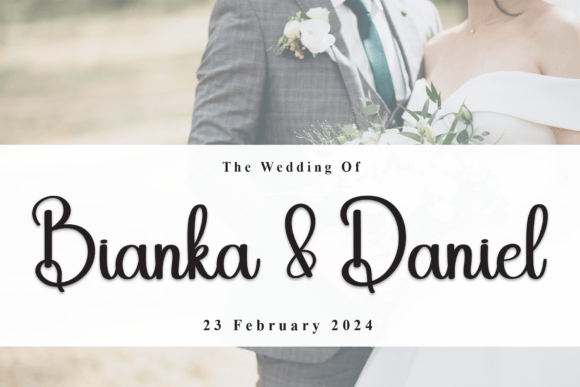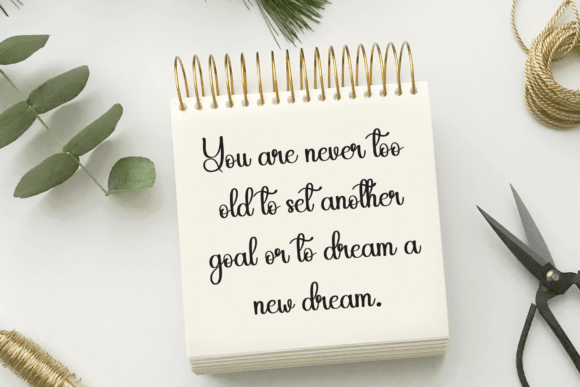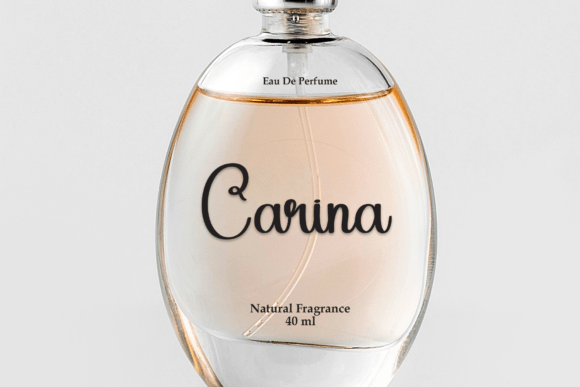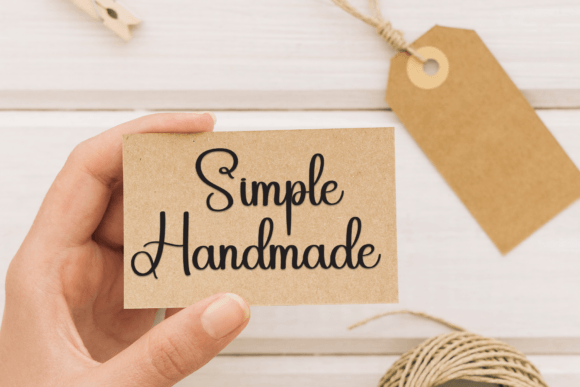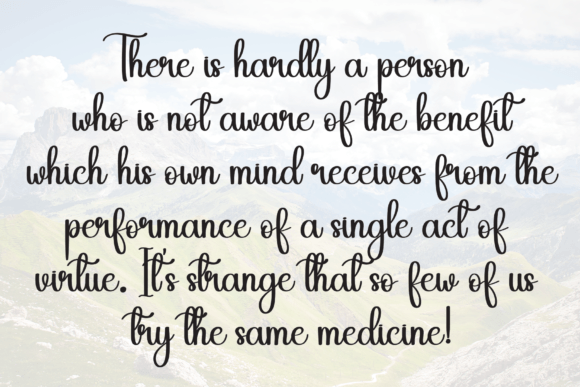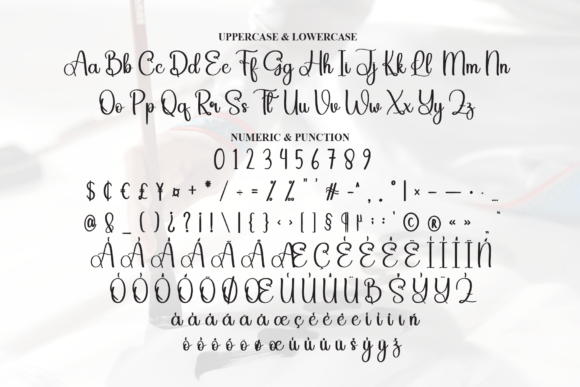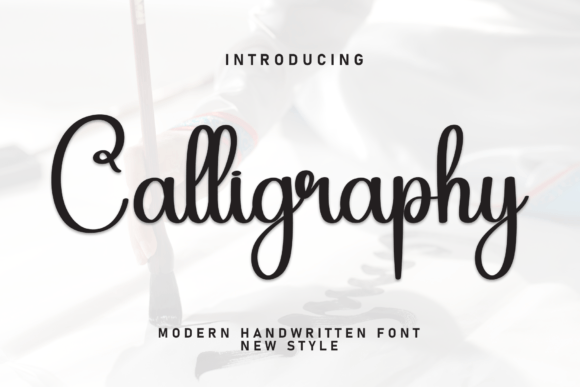
The Sweet Charm of Calligraphy Font: A Designer’s Delight
I’ll never forget the time I was working on a wedding invitation project, and my client asked for a font that was ” elegant, yet playful” and “not too formal, but still sophisticated.” I scoured the internet, tried out countless fonts, but nothing seemed to fit the bill. That was until I stumbled upon Calligraphy Font. ✨ This sweet and friendly handwritten font has been a game-changer for me, and I’m excited to share its charm with you.
- ✅ Cute and Versatile: Calligraphy Font is perfect for adding a fun touch to any design project, from wedding invitations to social media graphics.
- ✅ Elegant yet Playful: This font strikes the perfect balance between sophistication and playfulness, making it ideal for a wide range of design projects.
- ✅ Easy to Read: Despite its decorative nature, Calligraphy Font is surprisingly easy to read, even in smaller sizes.
While Calligraphy Font is an excellent choice for many design projects, there are a few things to keep in mind: ⚠️
- 🤔 Limited Use in Body Text: While the font is easy to read, it’s not the best choice for lengthy body text. It’s better suited for headings, titles, or short paragraphs.
- 🤔 Kerning Issues: As with any script font, kerning can be a bit tricky. Be sure to adjust the kerning to ensure the text looks smooth and polished.
The Designer Inspiration Behind Calligraphy Font
Calligraphy Font was inspired by the art of traditional calligraphy, where skilled artists would painstakingly craft beautiful letters and words by hand. The font’s creator aimed to capture the essence of this art form in a digital font that’s both elegant and playful. While the true story behind the font’s creation may be unknown, its beauty and charm are undeniable.
Q: What is Calligraphy Font best suited for?
A: Calligraphy Font is ideal for wedding invitations, cards, social media graphics, and any other design project that needs a touch of elegance and playfulness.
Q: Is Calligraphy Font easy to read?
A: Yes, despite its decorative nature, Calligraphy Font is surprisingly easy to read, even in smaller sizes.